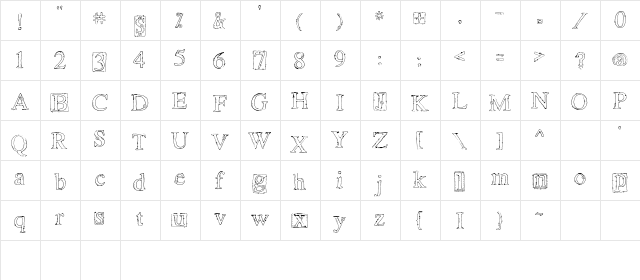
LDJ Quilted Times Regular
LDJ Quilted Times is a composed and adaptable typeface that performs quietly and consistently across a wide range of design contexts.